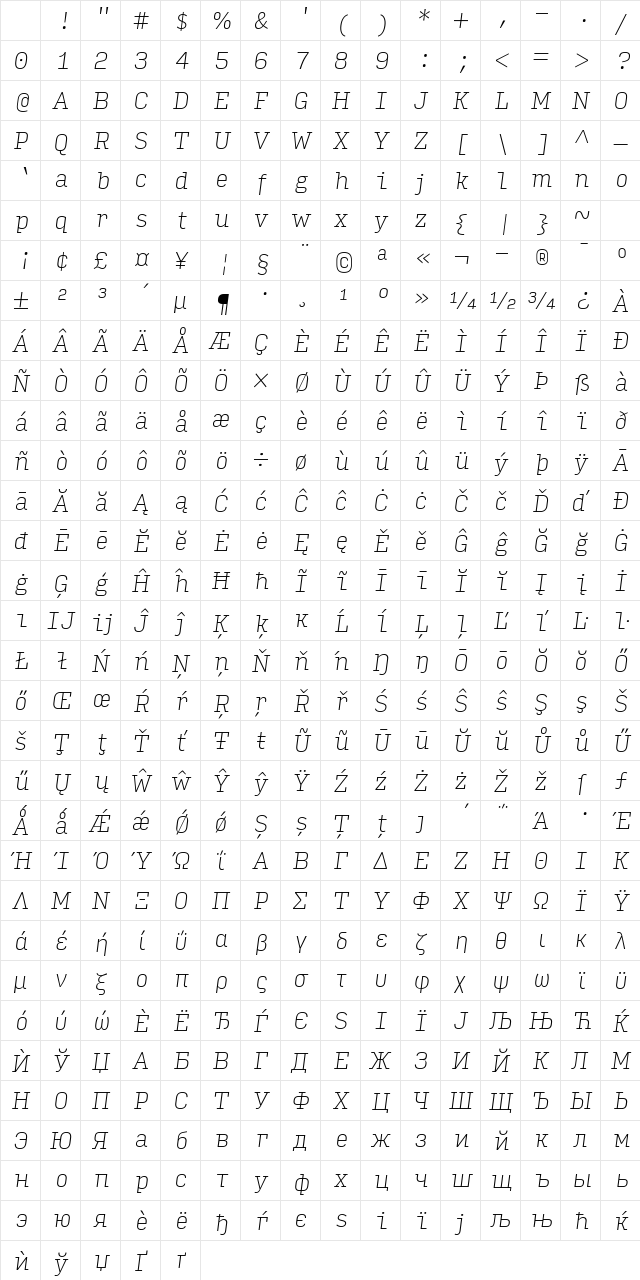
Input Serif Narrow Thin Italic
Style: Thin Italic
Foundry: David Jonathan Ross and The Font Bureau
Designer: David Jonathan Ross
Design Context for Input Serif Narrow
Input Serif Narrow carries the refined structure of traditional serif typography, with bracketed terminals and considered proportions that communicate credibility and craft. The slanted form adds forward momentum and visual energy. Its slender proportions lend an understated elegance to any composition. Its narrow stance lets it pack a punch even in space-constrained designs.